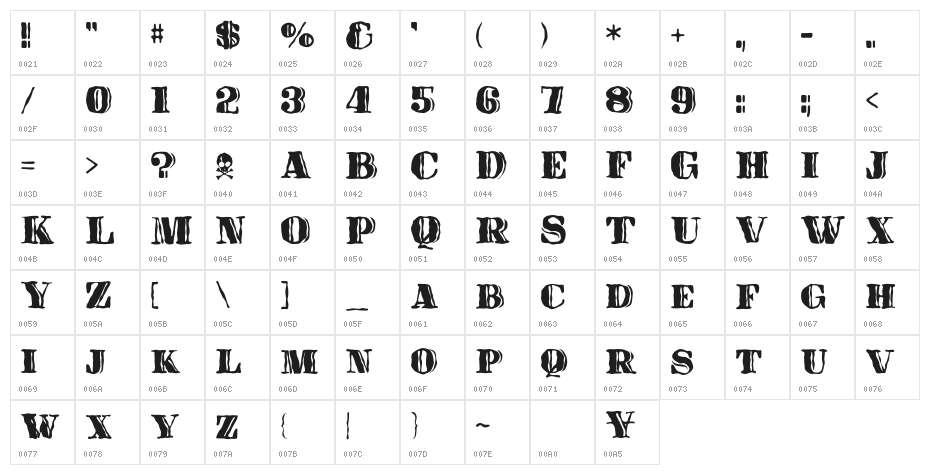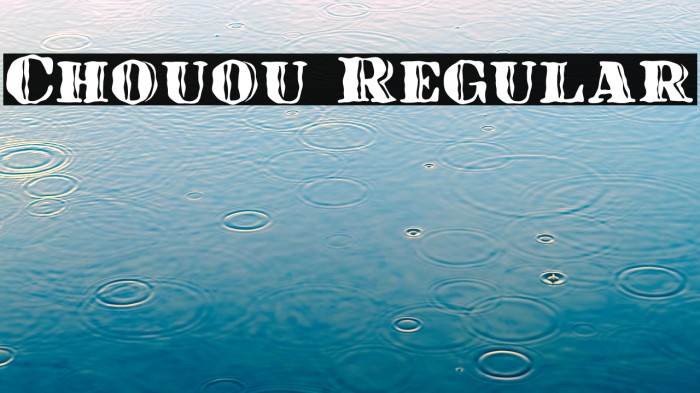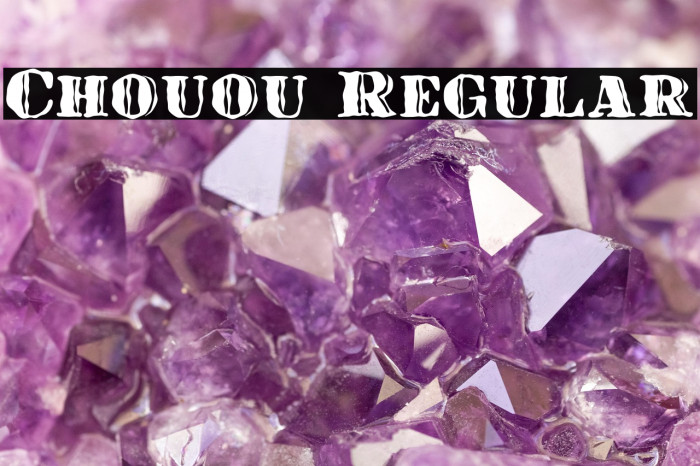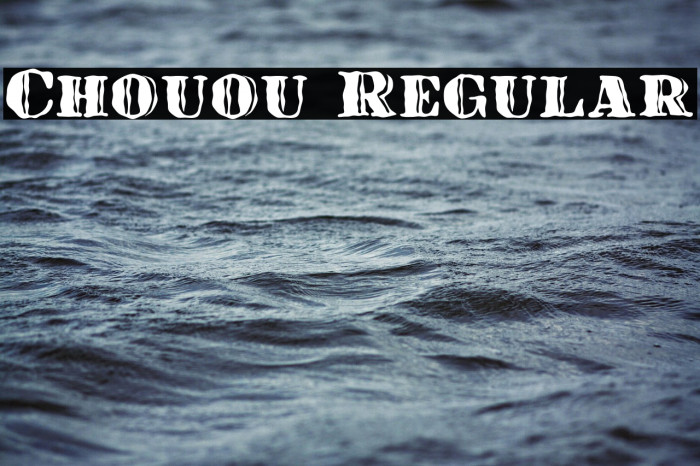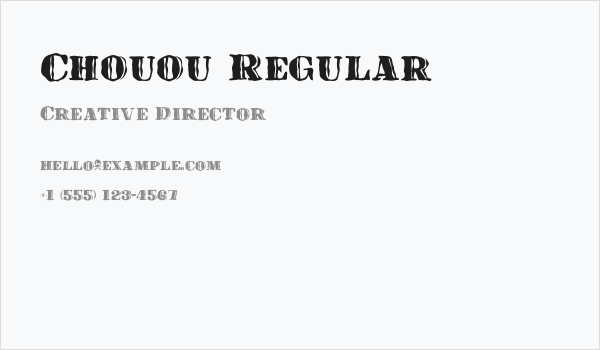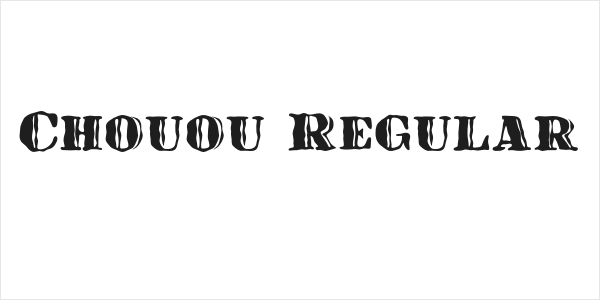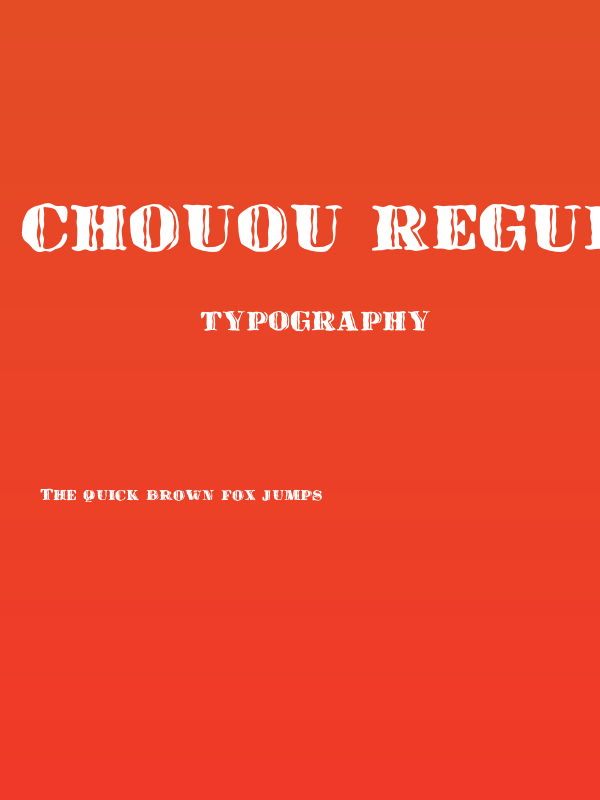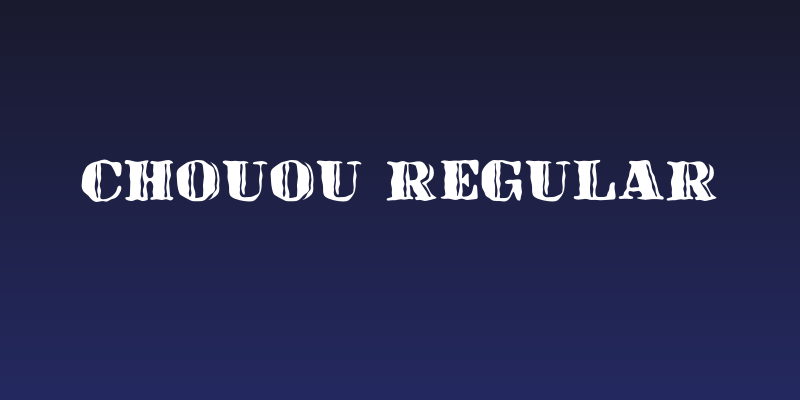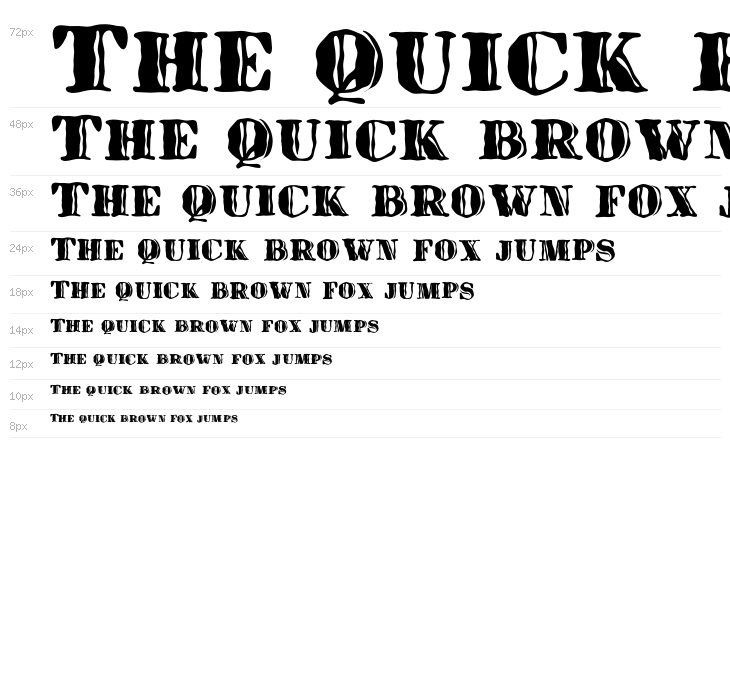
Chouou Regular Font
Chouou Regular Description
This font features a bold and decorative style with a distressed, vintage appearance. The characters have a unique, rugged texture that gives them a hand-crafted feel. The uppercase and lowercase letters maintain a consistent design, with sharp edges and irregular strokes that add to the font's distinctive look. The numbers and special characters follow the same aesthetic, ensuring a cohesive appearance across all glyphs. This font's bold presence and artistic flair make it suitable for eye-catching designs.
| Overall Style | Vintage, Decorative |
| Proposed Projects | Ideal for posters, album covers, branding projects, and any design requiring a bold, artistic touch. |